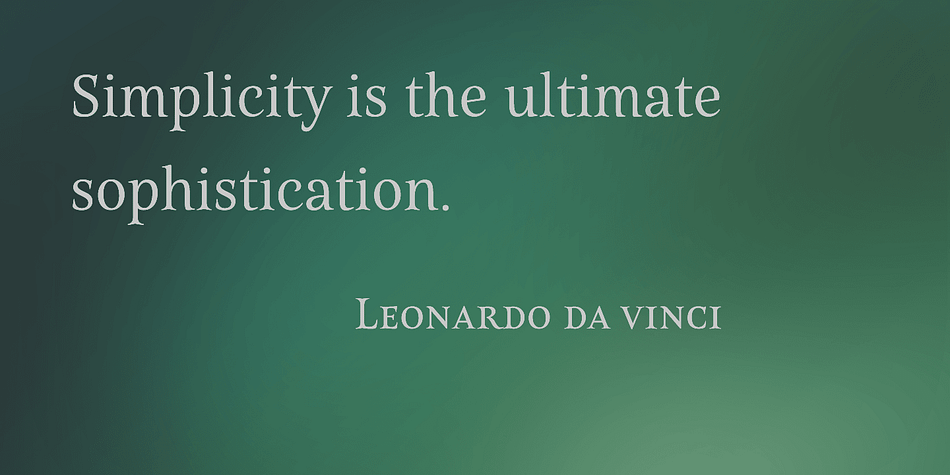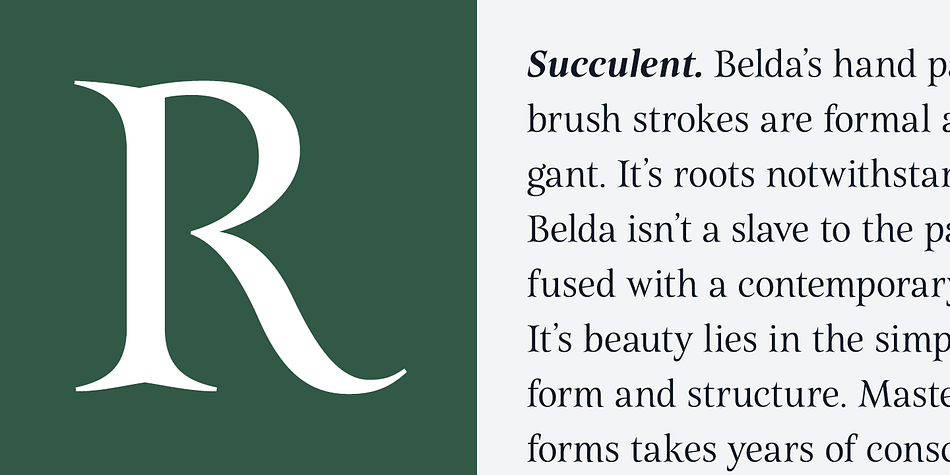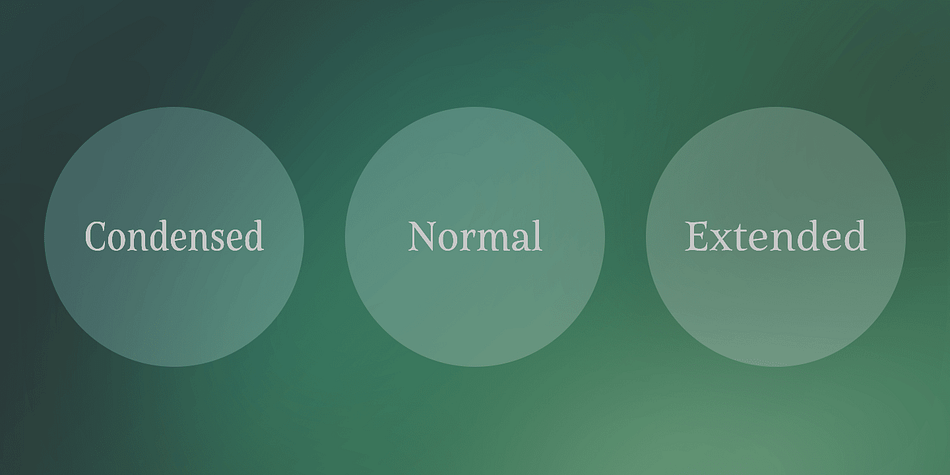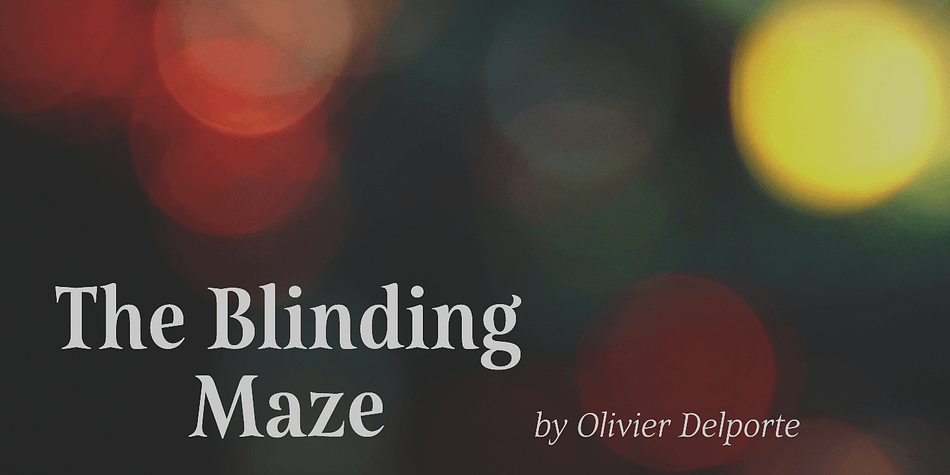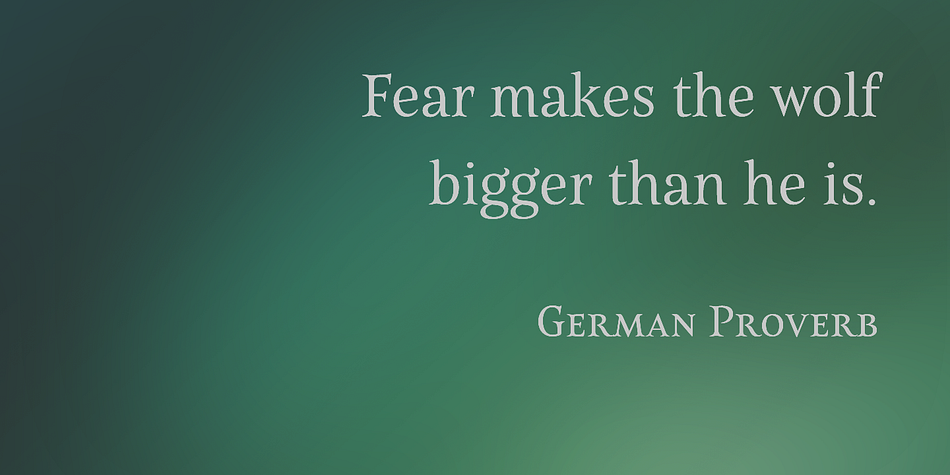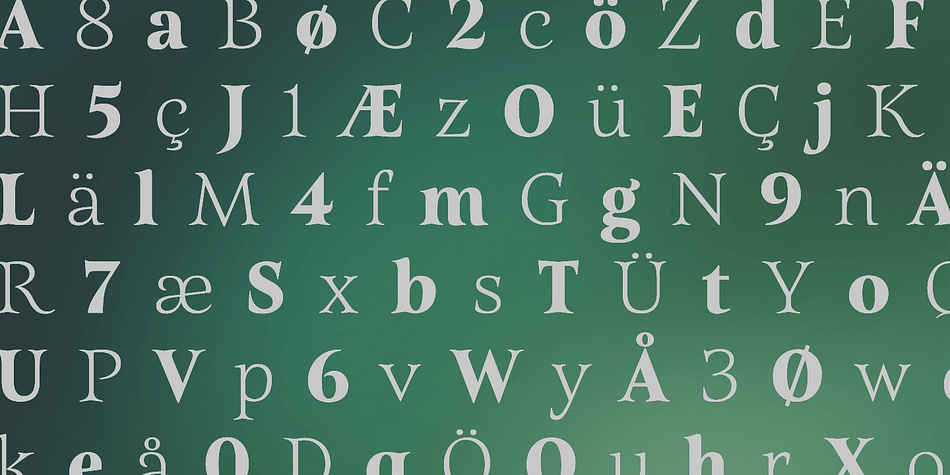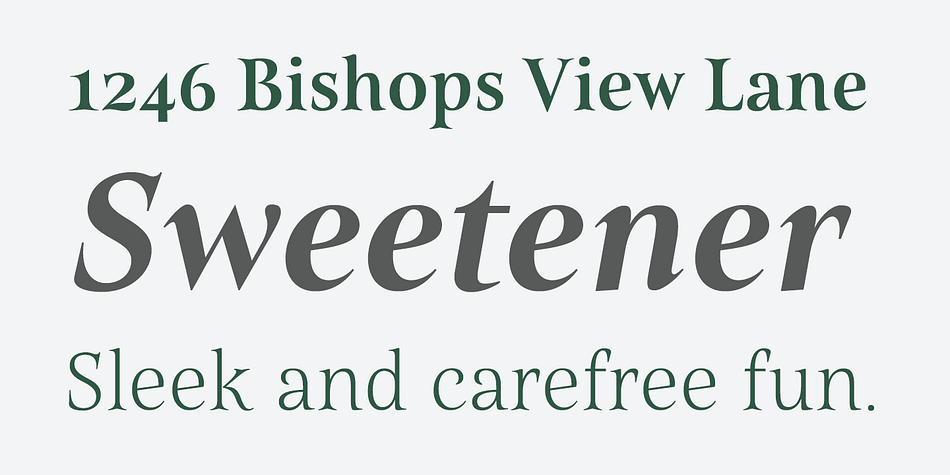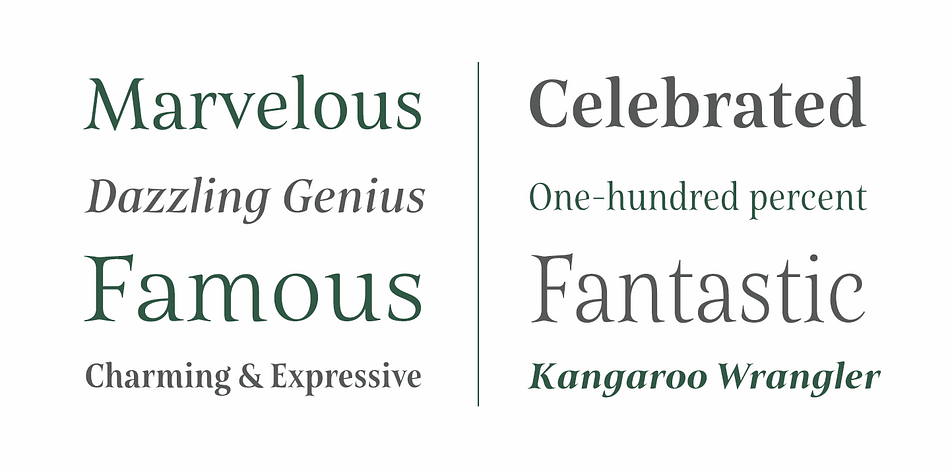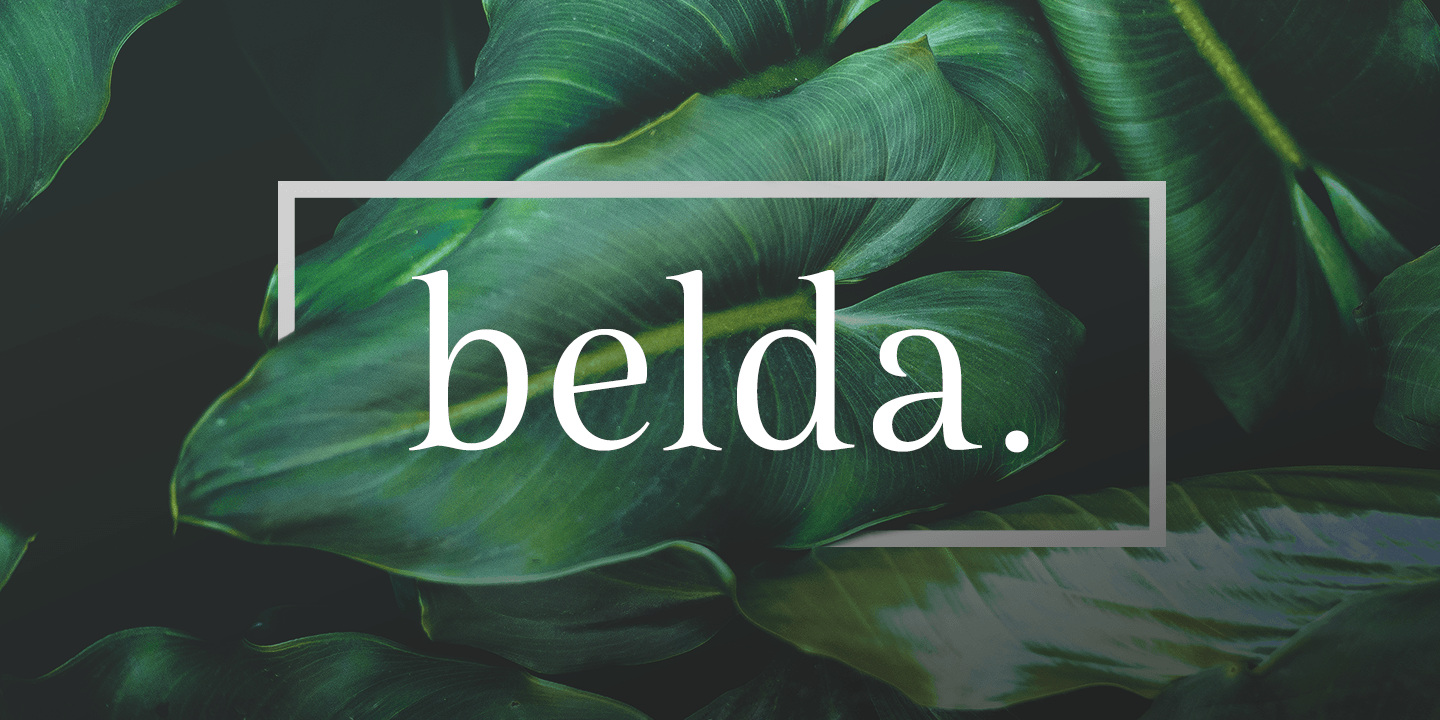
Belda is a serif font family. This typeface has fifty-four styles and was published by Insigne Design.
Step into the beauty of Belda’s elegant form and discover the richness flowing from both its historic influence and its strong elements. At its heart, Belda’s graceful style embodies the classical calligraphy of the Roman capital, best known from such Roman monuments as Trajan’s Column. To lessen the possibility for error, the builders of these defining structures brushed their templates onto the marble before taking their first cuts from the expensive stone.
These simple strokes now mark a simple but wonderful path full of life and mystery. Beyond a copy of the past, Belda has grown from its roots to offer a brave, new world of potential through its still-simple structure.
The new design strongly contrasts thickness and stroke. Its delicate shape, curves and sharp serifs provide a unique style of harmony and beauty. The resulting balance? The lighter weight design remains subtle and elegant, while the combination in its bolder counterparts provides an intense luster and sparkle, pulling the reader’s eye to the font’s captivating features.
A quick look beyond its surface of standard forms also reveals Belda has more layers to discover with OpenType small capitals, titling capitals and more.
With a wealth of weights and many widths beside, the font is capable of serving as both text and titling. While especially strong as a movie title or poster font, it’s also great for book jackets, advertising, and packaging. So start your journey with Belda. The possibilities to explore on this path are practically endless.